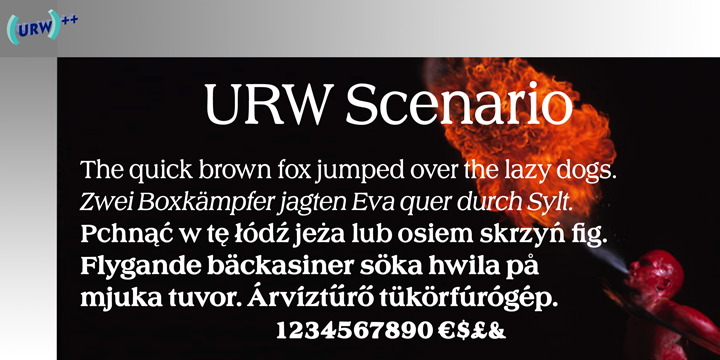
Scenario Font is perfect for movie titles, theatrical posters, dramatic book covers, film production logos, entertainment industry branding, storytelling presentations, screenplay headers, and cinematic projects that require bold, narrative-driven typography with strong visual impact.
This Scenario Font is exciting because it embodies the essence of storytelling and dramatic presentation, featuring bold letterforms with cinematic flair that instantly conveys narrative tension and visual drama, making every word feel like part of an unfolding story or movie scene.
The Scenario Font family includes multiple weights with distinctive character styling, complete uppercase and lowercase sets, numerals, punctuation marks, and special characters that provide comprehensive typography solutions for entertainment and media design applications requiring dramatic visual storytelling.
Ideal for creating compelling visual narratives and entertainment branding, Scenario Font Free Download delivers the cinematic typography that transforms ordinary text into dramatic visual experiences. This versatile typeface captures the excitement of Hollywood storytelling, making it an essential tool for designers working on film, theater, publishing, and any project requiring bold, narrative-focused typography that commands audience attention.